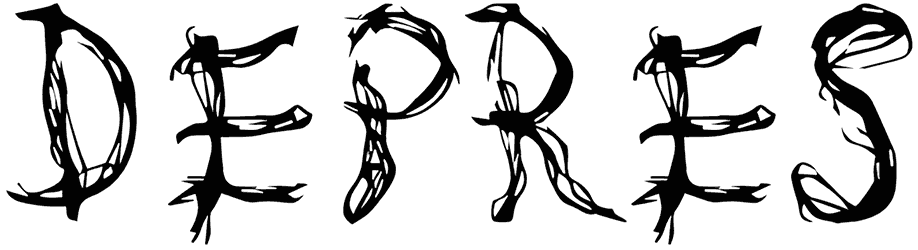
A Theme for Murder Font
A Theme for murder Font
Welcome to the new natural font! Here is a Theme for Murder emo font with a friendly and handwritten design that looks like it was created by playing a harsh inky brush tool on paper. This font can be a perfect option for any titles, quotes, logos, posters, t-shirts, or others when you desire to add an artistic look to your graphic design. Get it and enjoy!